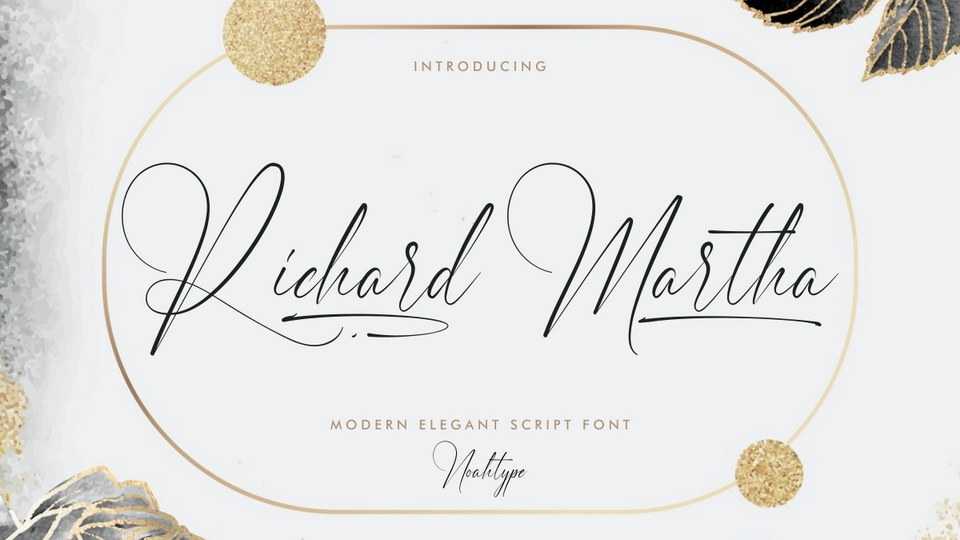
Download Richard Martha font, a stylish signature handwriting typeface with modern and elegant characters. Richard Martha is crafted carefully in every its single scratch to look as close to a natural handwritten script.